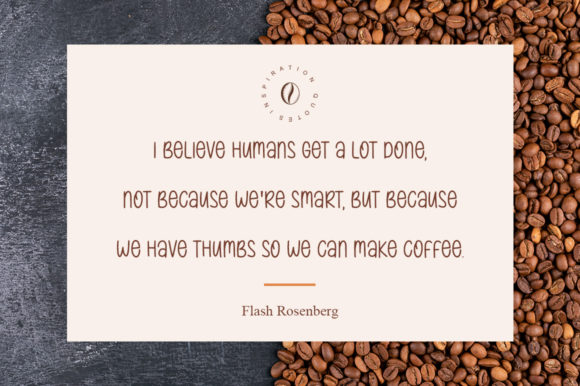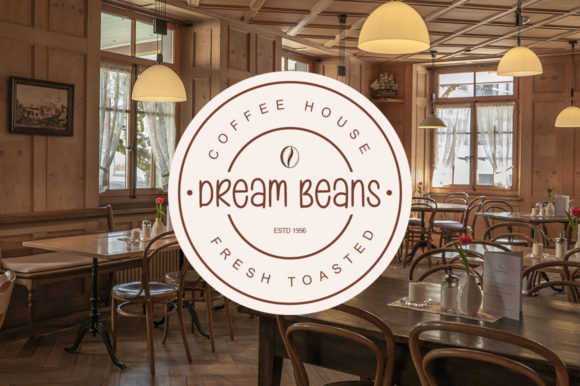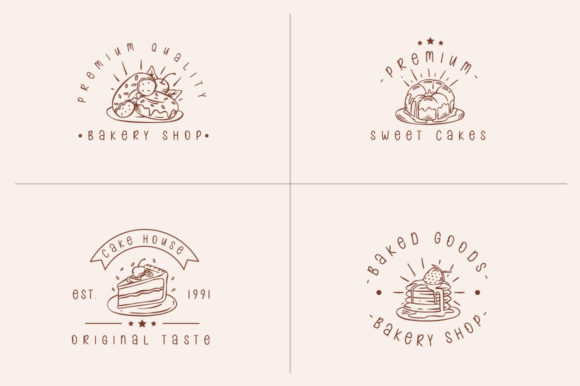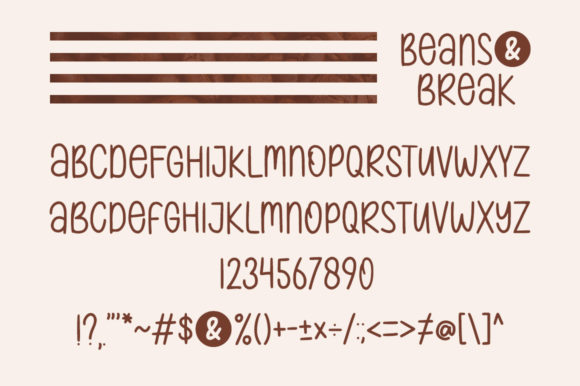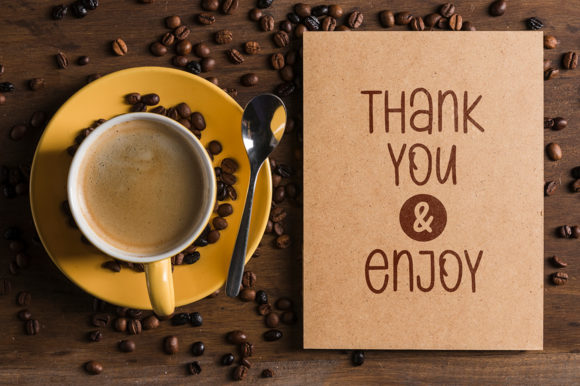
The Joy of Beans & Break Font: A Designer’s New Best Friend
I still remember the time I was working on a project for a kids’ educational website, and I was struggling to find the perfect font that would capture the playful and carefree spirit of the brand. The client wanted something that would appeal to kids and make learning fun, but I was coming up blank. That’s when I stumbled upon Beans & Break, a cute handwritten font that instantly brought a smile to my face. Its childlike playfulness and whimsical charm won me over, and I knew I had found the perfect fit.
An Honest Review: What I Love (and What to Watch Out For)
- ✨ **Playful and whimsical**: Beans & Break is perfect for kids’ projects, school materials, and any design that needs a dash of fun and personality.
- ✅ **Easy to read**: Despite its playful nature, the font is surprisingly legible, even at smaller sizes.
- 💕 **Versatile**: Use it for titles, headings, or even body text – Beans & Break adapts to different contexts with ease.
While Beans & Break is an amazing font, there are a few things to keep in mind:
- 🤔 **Limited formal settings**: This font is clearly designed for informal, playful contexts. It might not be the best fit for more formal or corporate designs.
- ⚠️ **Occasional kerning issues**: As with any handwritten font, you might encounter some kerning quirks. Be sure to adjust as needed for optimal results.
The Story Behind Beans & Break
Beans & Break was designed with one goal in mind: to create a font that would bring joy and playfulness to kids’ projects and educational materials. The designer, a passionate typographer and lover of all things whimsical, drew inspiration from childhood memories of scribbling with crayons and markers. The result is a font that’s equal parts fun, friendly, and functional.
Q: Is Beans & Break suitable for body text?
A: While Beans & Break is primarily designed for headings and titles, it can be used for body text in certain contexts. However, keep in mind that readability might decrease at smaller sizes.